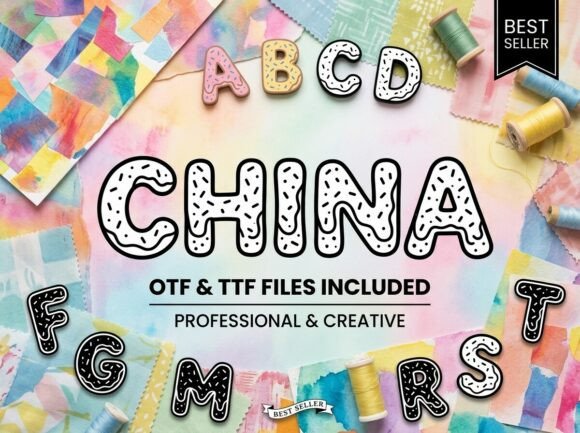
The Sweetest Font You’ll Ever Meet: China Font
Have you ever been working on a design project, and suddenly, you’re stuck on finding the perfect font? I remember a project where I was tasked with creating a brand identity for a local bakery. I scoured the internet for a font that could capture the sweet and playful personality of the bakery, but nothing seemed quite right. That’s when I stumbled upon China Font, a delicious display typeface that instantly made my design dreams come true!
First Impressions: A Sugary-and-Satisfied Soul
China Font is a bold, bubbly typeface that features hand-drawn letterforms shaped like donuts, complete with smooth icing drips and a dense dusting of sprinkles. Its heavy illustrative weight and joyful personality make it the perfect choice for independent bakery branding, artisanal dessert packaging, creative cafe signage, and high-impact social media headers.
Honest Review: The Good and the Quirky
- ✨ Unique and playful design that’s sure to grab attention
- ✅ High-quality, detailed illustrations that resemble hand-drawn donuts
- 💕 Emotive and whimsical feel that’s perfect for sweet-themed designs
- 📸 Versatile and adaptable for various design applications
- 🤔 May not be suitable for body text or small font sizes due to its bold and decorative nature
- ⚠️ Limited legibility when used in all caps or with certain color combinations
China Font was designed with the intention of capturing the joy and playfulness of sweet treats. The designer, inspired by the colorful world of desserts, aimed to create a font that would bring a smile to people’s faces. With China Font, you can add a touch of whimsy and fun to your designs, making it perfect for creative projects that require a dash of personality.
Q: What is China Font best used for?
A: China Font is ideal for designs that require a playful and whimsical touch, such as bakery branding, dessert packaging, cafe signage, and social media headers.
Q: Can I use China Font for body text?
A: While China Font is a beautiful and decorative font, it may not be the best choice for body text due to its bold and illustrative nature. It’s better suited for headlines, titles, and short text passages.
Q: Is China Font available in different styles or weights?
A: China Font is a single font with a unique design, but it features OpenType features, glyphs, and stylistic alternates that allow for some variation and customization.